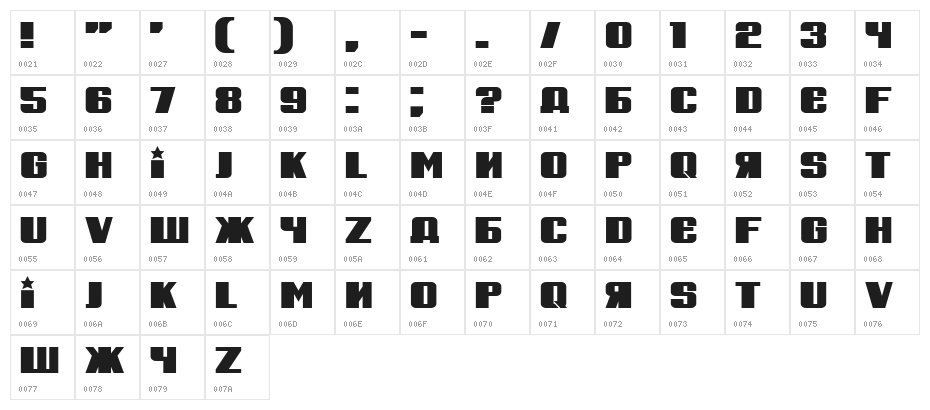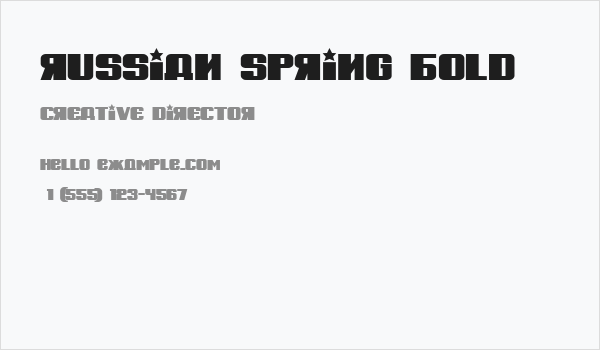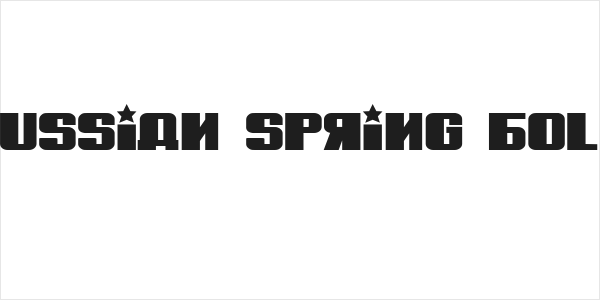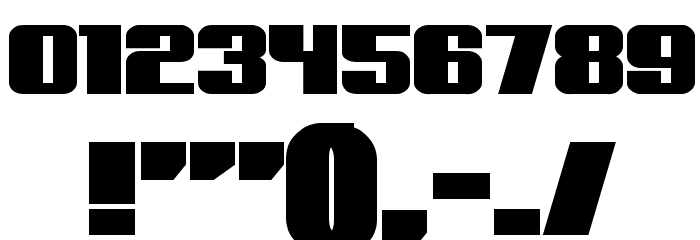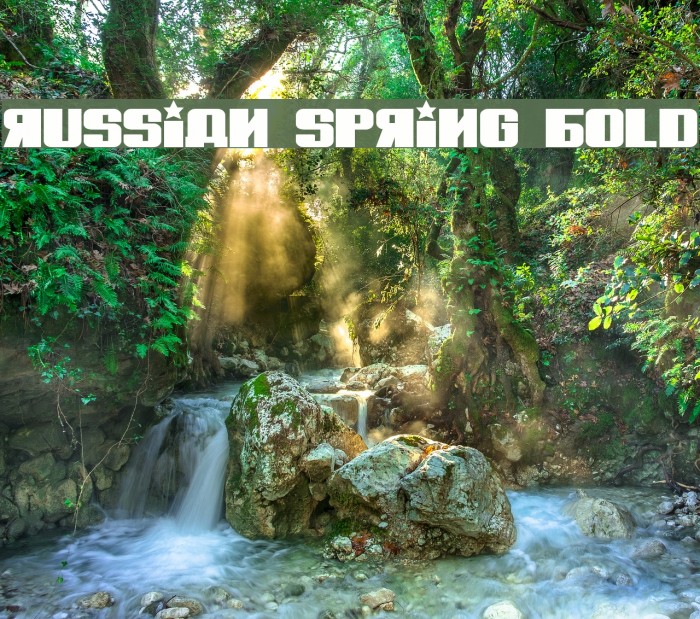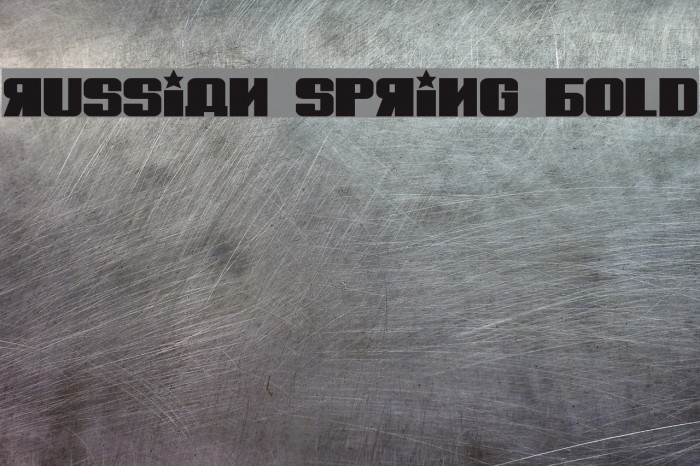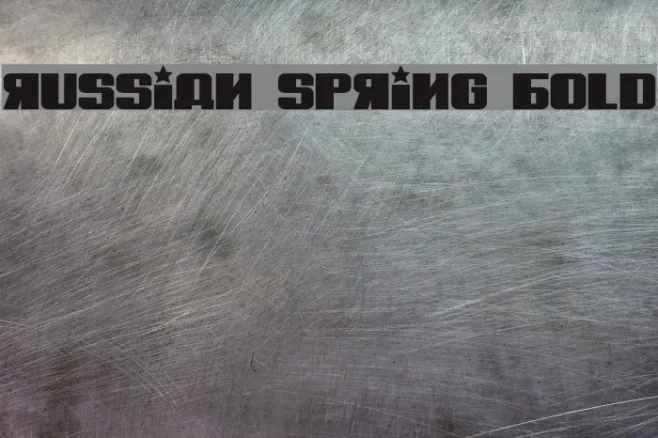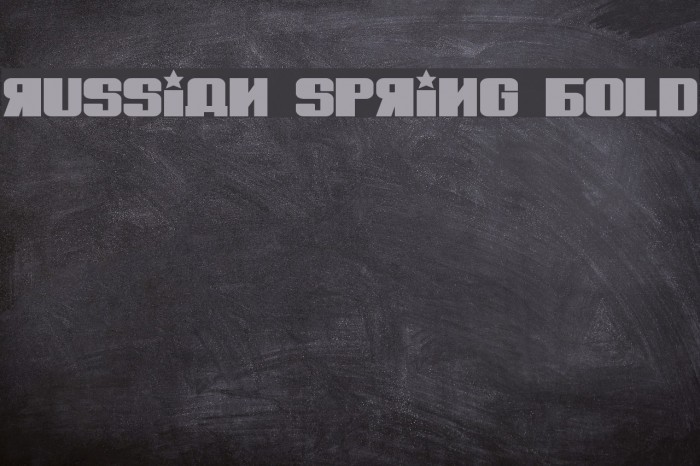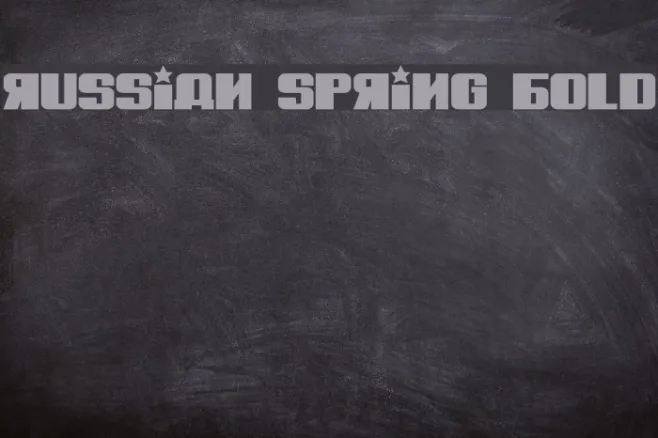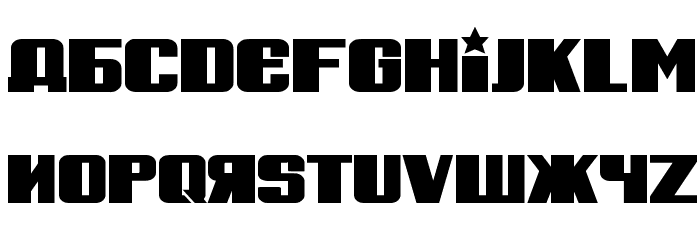
Russian Spring Bold Font
Russian Spring Bold Description
This bold and striking font features a strong, geometric design with a distinctly modern and industrial feel. The characters are blocky and robust, with sharp angles and a uniform thickness that conveys a sense of strength and stability. The uppercase letters are particularly eye-catching, with some characters incorporating unique elements like stars or slashes that add a decorative touch. The numbers and special characters maintain the same boldness and geometric style, ensuring consistency across all elements. This font is ideal for making a powerful statement in any design project.
| Proposed Projects | Ideal for posters, headlines, branding, and any project requiring a strong visual impact. |